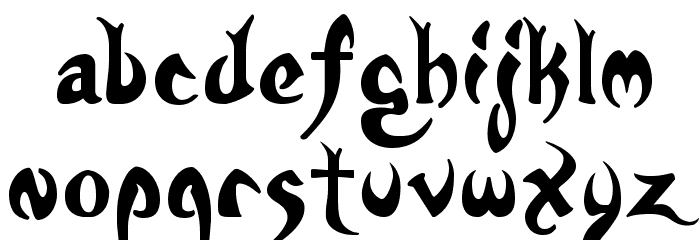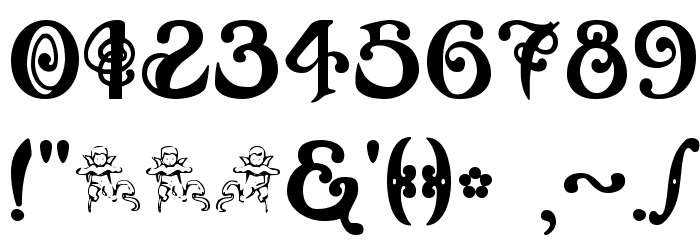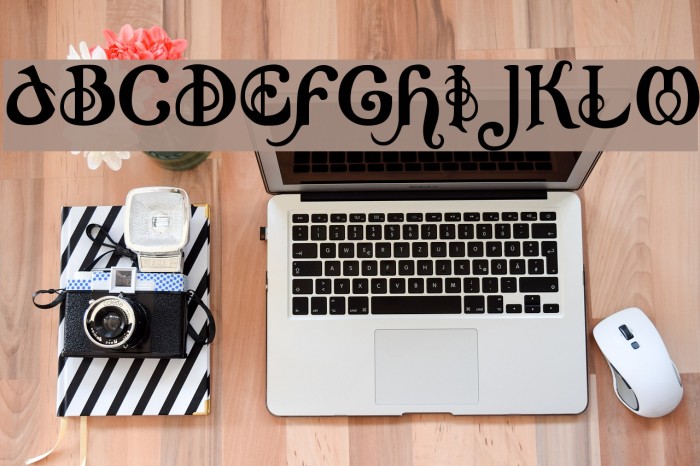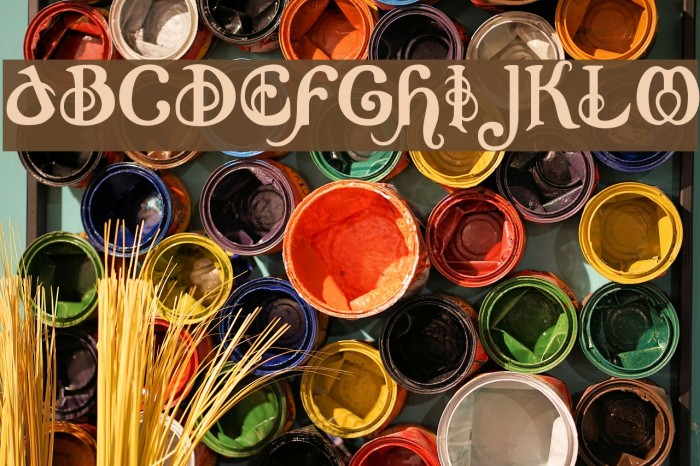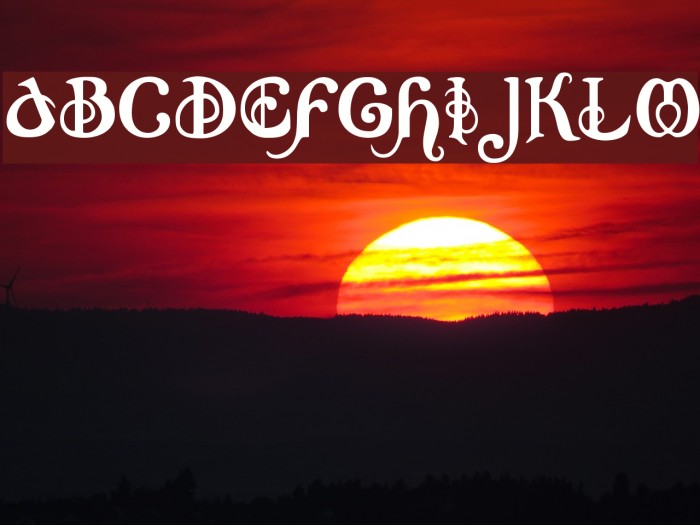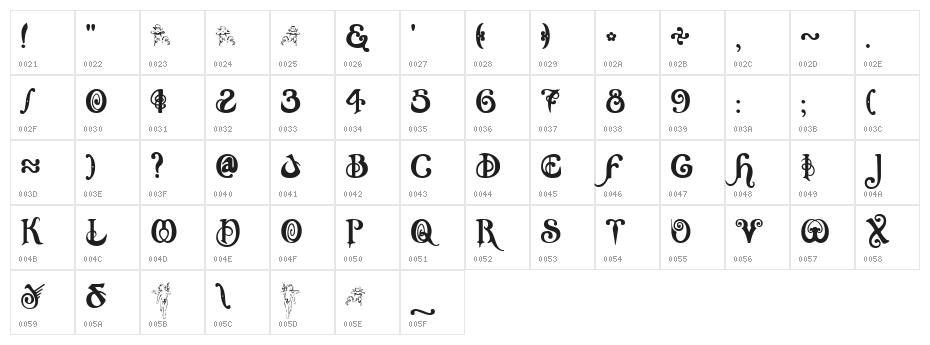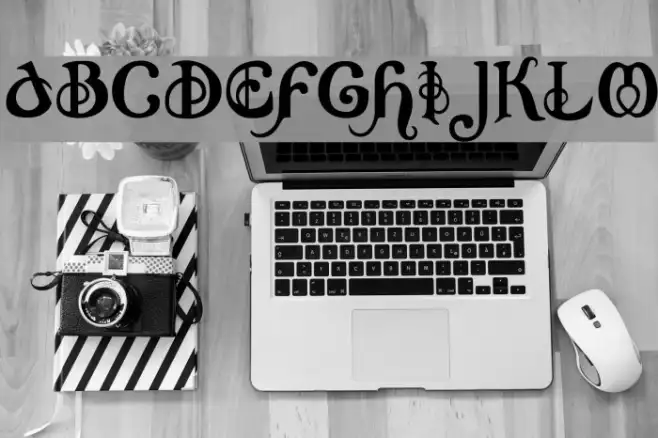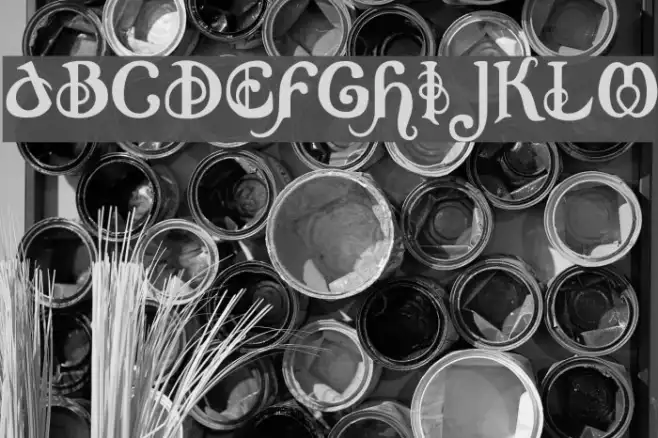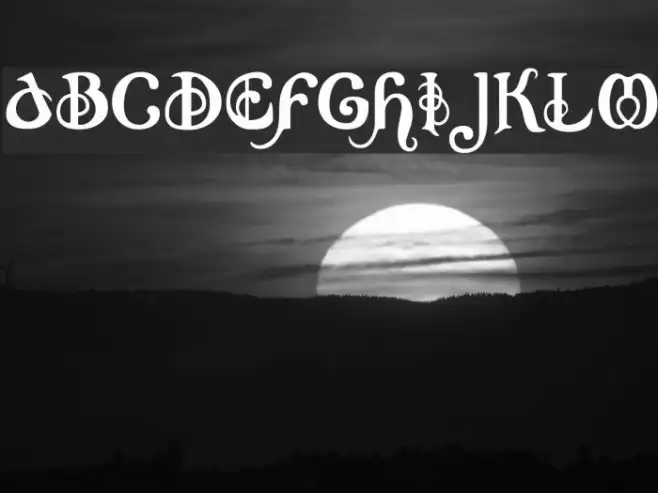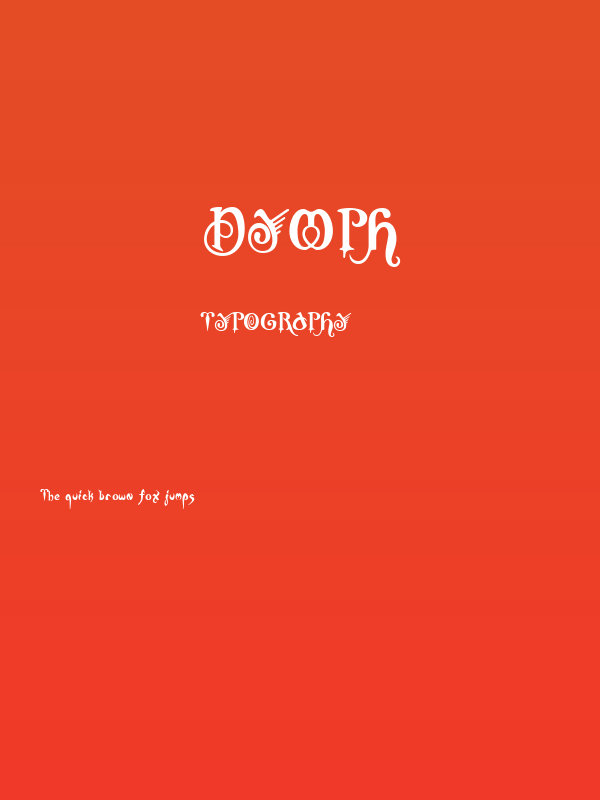
Nymph Font
This font features a highly decorative and whimsical style, characterized by intricate curves and flourishes that give it a mystical and enchanting appearance. The uppercase letters exhibit unique embellishments, with some characters incorporating spiral and looped elements that add to the font's ornate nature. The lowercase letters maintain a consistent decorative theme, with varying stroke thickness that enhances the font's artistic flair. Numerals are equally stylized, with some digits featuring swirls and curls that align with the overall design. Special characters, including punctuation marks, are designed with similar embellishments, contributing to the font's cohesive and imaginative aesthetic.
A decorative and whimsical font with intricate curves and flourishes.
- Proposed Projects: Ideal for fantasy-themed projects, book covers, invitations, and branding that requires a magical or mystical touch.
- Use Case: Headlines, Logos, Invitations